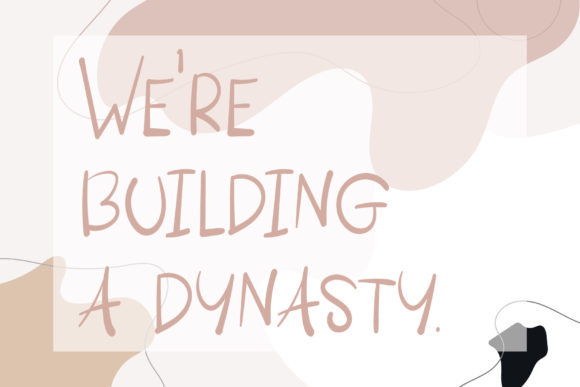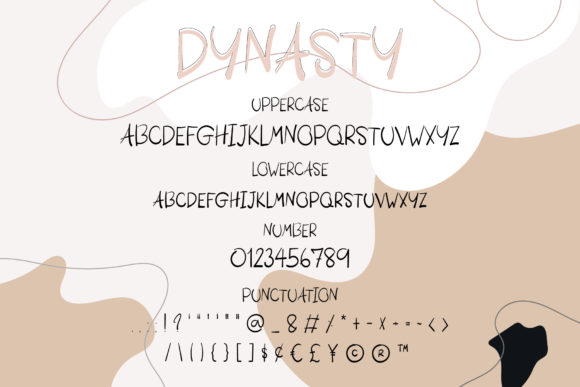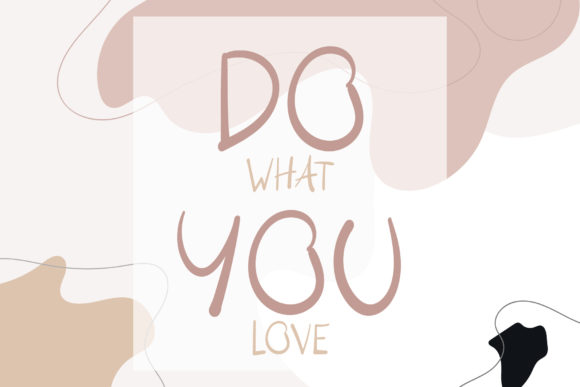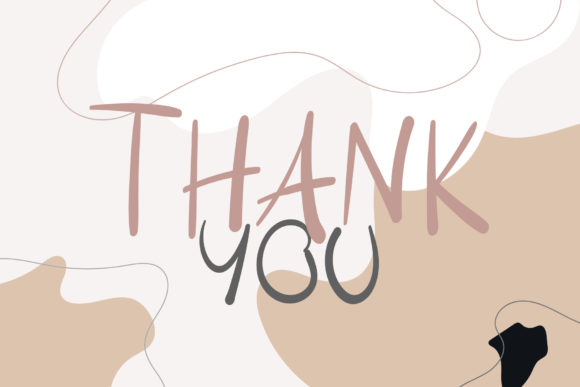
Dynasty Font
About Dynasty Font
Dynasty is a charming and approachable handwritten font, carefully crafted using a brush pen. Its casual and friendly nature adds a delightful touch to your designs, making it an excellent choice for various creative projects.
The font’s creation with a brush pen imparts a sense of authenticity and handcrafted appeal, elevating your designs with a personal touch.
Dynasty’s clean lines ensure legibility and clarity, making it ideal for conveying messages effectively across different mediums.
Its slight quirkiness adds a playful element to your designs, infusing them with a touch of whimsy and fun.
For logos and branding, Dynasty becomes an iconic representation of your business. Its casual yet professional vibe creates a sense of approachability, making it easy for customers to connect with your brand.
On social media, Dynasty thrives. Its friendly and relaxed aura captivates audiences, enhancing engagement and interaction with your posts.
In the realm of crafty DIY projects, Dynasty is a true gem. Whether you’re designing handmade cards, scrapbooks, or personalized gifts, the font’s casual and friendly appearance elevates your creations to new heights.
Its versatility ensures that Dynasty complements various design themes, making it an adaptable choice for both contemporary and vintage-inspired projects.
In summary, Dynasty is more than just a font; it’s a tool that adds a touch of casual elegance and friendliness to your designs. From logos and branding to social media and DIY projects, Dynasty enhances your creativity and makes every endeavor a delightful experience. Embrace the charm of Dynasty in all your creative pursuits and discover how it transforms your projects into true works of art that resonate with your audience.